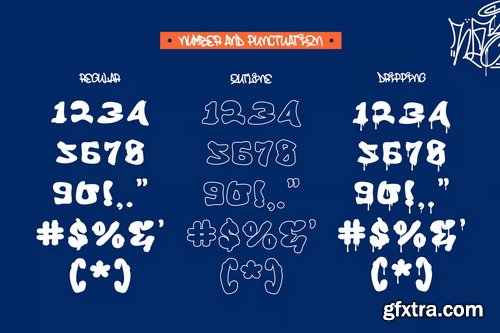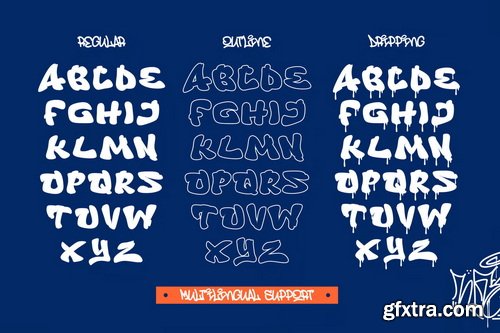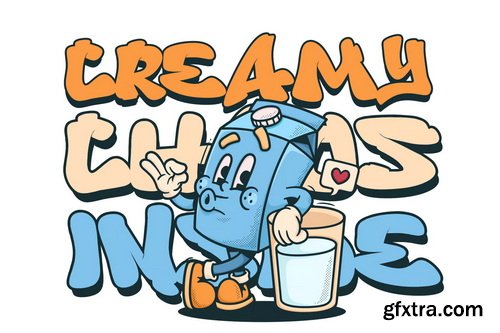
Bropz Dripping Graffiti Font
Bropz is a bold and rebellious all-caps graffiti font that brings raw street energy straight to your designs. With three striking styles—Standard (Solid), Outline, and Drip—Bropz gives you the creative tools to make bold statements, loud tags, and urban-inspired graphics that can’t be ignored.